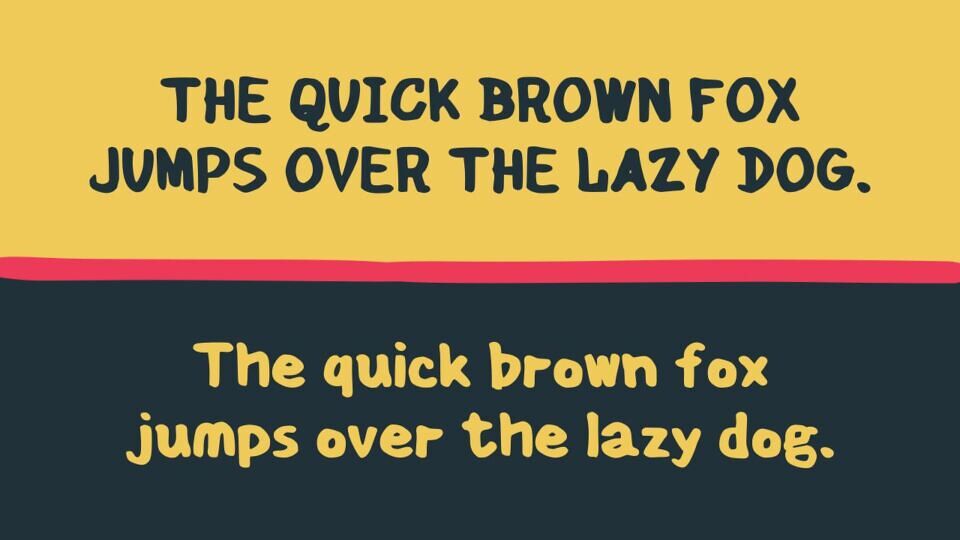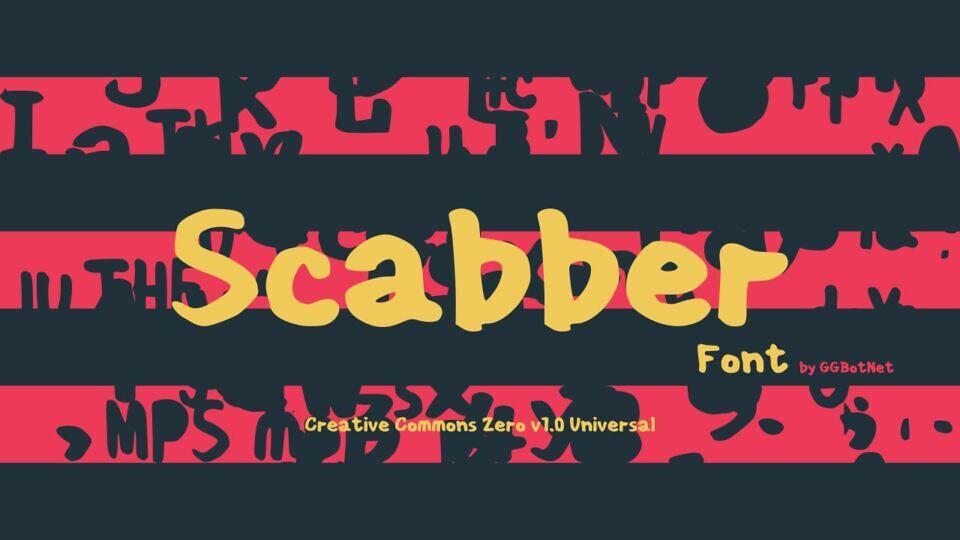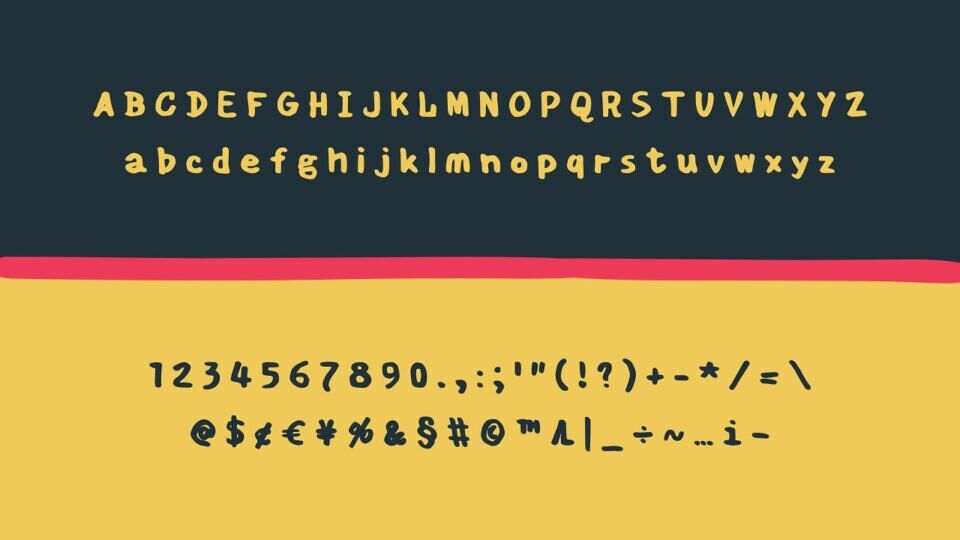
Scabber Font, crafted by GGBotNet, is a distinctive handwritten typeface available under the CC0 license for personal and commercial use. Its raw, organic strokes bring a playful, authentic vibe, perfect for creative projects like posters, branding, or digital art.